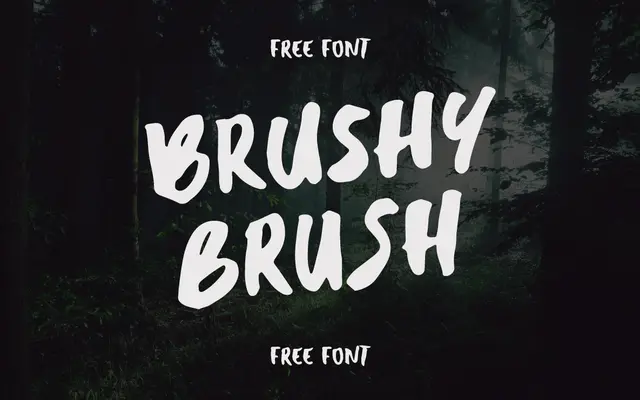
Brushy Brush Free Font
Brushy Brush Free Font specimen from Colt Type
A quickly made brush script offered free for personal and commercial use, with some post-session refinement.
Made in under an hour as an experiment, with a further hour or two spent tidying overlooked details. It is a casual, handmade brush script with the rough energy you would expect from a rapid exercise. Free for both personal and commercial use, though redistribution and resale are prohibited.
Described explicitly as a brush font, made using a brush technique; falls squarely into the brush script subcategory of script typefaces.